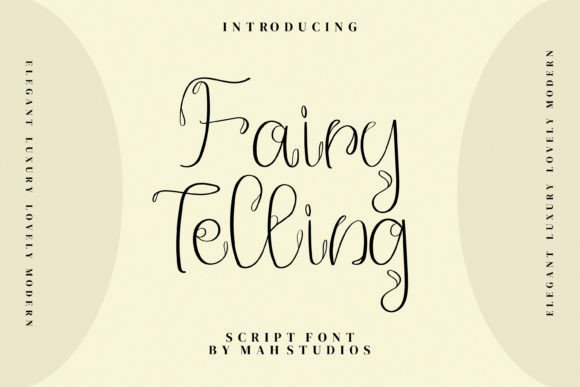
Fary Telling Font: Elevate Your Creativity with Elegance
In the world of typography, a font can make all the difference in transforming a simple design into a masterpiece. For those seeking a touch of elegance and magic in their creative projects, the Fary Telling Font is an exceptional choice. This beautifully crafted script font is designed to bring a sense of sophistication and charm to any design, making it perfect for a wide range of applications, from Instagram posts to DIY projects.
The Essence of Fary Telling Font
Fary Telling is not just a font; it’s an experience. With its delicate strokes and elegant flow, this magical script font is carefully created to add a touch of whimsy and romance to your designs. Whether you’re a designer looking for the perfect font for your next project or a crafter seeking a unique style for your DIY endeavors, Fary Telling Font is sure to captivate your audience and leave a lasting impression.
Key Features of Fary Telling Font
- Elegant Script Style: Fary Telling boasts a beautiful, flowing script style that adds a touch of sophistication to any design.
- Magical Touch: With its unique and intricate details, this font brings a sense of magic and wonder to your creative projects.
- Versatile: Perfect for a wide range of applications, including Instagram posts, calligraphy scripts, DIY projects, and more.
- User-Friendly: Designed to be easy to use, Fary Telling Font is perfect for both beginners and experienced designers.
Uses of Fary Telling Font
The versatility of Fary Telling Font makes it an excellent choice for various creative projects. Here are some of the many ways you can use this beautiful font:
- Instagram and Social Media: Elevate your Instagram posts and stories with a touch of elegance and sophistication.
- Calligraphy and Hand Lettering: Use Fary Telling Font as a guide for creating stunning calligraphy and hand lettering pieces.
- DIY Projects: Add a personal touch to your DIY projects, such as handmade cards, invitations, and decorations.
- Graphic Design: Incorporate Fary Telling Font into your graphic design projects, including brochures, flyers, and posters.
Fary Telling Font is a magical script font that can elevate your creative projects to new heights. With its elegant style, versatile uses, and user-friendly design, this font is perfect for designers, crafters, and anyone looking to add a touch of sophistication to their work. Whether you’re creating Instagram posts, calligraphy scripts, or DIY projects, Fary Telling Font is sure to turn your creative ideas into true pieces of art.